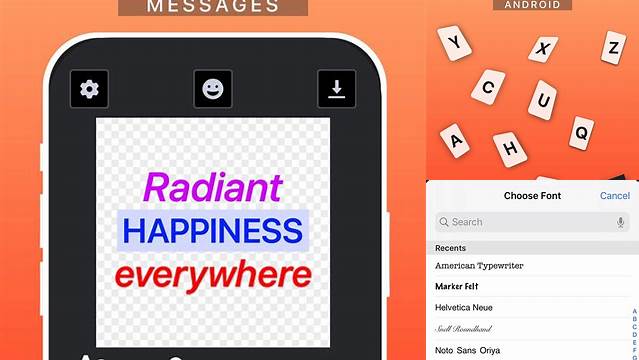
IOS Fonts For Android: Your Complete Download Guide
Hey guys, ever looked at an iPhone and thought, "Man, those fonts are slick!" Well, if you're an Android user, you're in luck! You don't have to be stuck with the same old fonts. You can absolutely get that iOS font style on your Android device. This guide will walk you through everything you need to know about downloading and installing iOS fonts on your Android phone, making your device look fresh and new. We will cover the process in detail, ensuring that even if you're not a tech whiz, you can follow along easily. We will also explore some popular iOS fonts and explain the benefits of using them. So, get ready to give your Android a stylish makeover!
What are iOS Fonts, and Why Use Them on Android?
Before we dive into the how-to, let's chat about what we're actually doing. iOS fonts are the specific typefaces used on Apple's iPhones and iPads. These fonts are carefully designed to provide a clean, readable, and aesthetically pleasing experience. The primary font used across the iOS interface is San Francisco. San Francisco comes in different weights and styles, each designed to create a unique look. The fonts on the iOS have a certain sleekness and modernity that many Android users find appealing. But, why would you want to put iOS fonts on your Android device? Here's the deal:
- Personalization: Android is all about customization, right? Changing your font is one of the easiest ways to make your phone feel unique. It’s a way to express your style and stand out from the crowd. Choosing iOS fonts allows you to give your Android a distinctive and recognizable look.
- Aesthetics: iOS fonts are often praised for their clean and modern design. They offer excellent readability, which is essential for everyday use. By switching to iOS fonts, you can improve the visual appeal of your Android’s interface. This improves your phone's readability and overall user experience.
- Familiarity: If you're coming from an iPhone, or if you just like the way iOS looks, using these fonts on Android can create a sense of familiarity and comfort. It can also serve as a bridge between different devices.
Once you've downloaded the font files, store them in a safe place on your device. Now, the fun part starts: installing them!
Installing iOS Fonts on Your Android Device
Okay, you have your font files ready to go. Now, let's install them. The installation method can vary slightly depending on your Android version and the type of device you have. However, the general steps are usually the same. There are typically two main ways to get those fonts working on your device. First, we have the built-in settings, and second, we have third-party apps that come into play.
Using Built-in Font Settings
Some Android devices, particularly those from manufacturers like Samsung, Xiaomi, and Huawei, have built-in font settings. These settings allow you to change the system-wide font easily without needing third-party apps. Here's how to do it:
- Open Settings: Go to your device’s settings menu. This is usually represented by a gear icon.
- Navigate to Display Settings: Look for options like “Display,” “Screen,” or “Wallpaper & style” (the exact wording will vary).
- Find Font Settings: Within the display settings, look for an option labeled “Font style,” “Font size and style,” or something similar. Tap on it.
- Select a Font: You should see a list of pre-installed fonts. Some devices also allow you to add custom fonts. If there's an option to add a custom font, tap on it. This will usually prompt you to select the font file you downloaded.
- Choose the iOS Font: Browse your device’s storage and select the iOS font file (.ttf or .otf) that you downloaded.
- Apply the Font: Once you select the font, you may be prompted to confirm the installation. Tap on “Apply” or “OK” to apply the new font to your system.
Using Third-Party Apps
If your device doesn’t have built-in font settings or if you want more control, you can use a third-party app. There are many apps available on the Google Play Store that let you change fonts. The best thing is to do a search for "font changer" or "font style" in the Google Play Store. Some popular font changer apps include iFont, HiFont, and FontFix. Here's a general guide on how to use them:
- Download and Install the App: Download a font changer app from the Google Play Store and install it on your device. Make sure to read reviews to pick a reliable app.
- Open the App: Launch the font changer app.
- Grant Permissions: The app will likely ask for permissions, such as access to your storage. Grant the necessary permissions.
- Find and Select the Font: The app should have a list of available fonts. Browse the list and look for your desired iOS font (or a close equivalent). If the font isn’t listed, you may need to import the font file from your device’s storage.
- Apply the Font: Select the font, and the app will guide you through the installation process. This may involve a system reboot or other steps.
- Reboot Your Device: After the installation, the app might prompt you to restart your device for the font to take effect. Do so.
When using third-party apps, be aware of the following:
- Root Access: Some apps may require root access to change fonts system-wide. If you don't know what root access is, don't worry! There are also apps that don't require it, especially for devices that have custom font support built in.
- App Permissions: Pay attention to the permissions the app requests. Only grant permissions that are necessary.
- Ads and In-App Purchases: Many font changer apps are ad-supported and may offer in-app purchases. Consider this when choosing an app.
Troubleshooting and Tips
Alright, let's get into some of the common issues you might run into and how to fix them. Even when following the instructions, sometimes things don't go as planned. Don't worry; we will troubleshoot some problems and offer some useful tips:
Font Not Changing
- Compatibility Issues: Check if the font file is compatible with your device and Android version. Ensure the file is in .ttf or .otf format.
- Incorrect Installation: Double-check that you followed the installation steps correctly. You may need to restart your device after installation.
- App Issues: If you're using a third-party app, ensure the app has the necessary permissions and that it is compatible with your device. Try restarting the app or reinstalling it.
Font Looks Strange
- Font Rendering: Some fonts may not render perfectly on all devices. This can depend on your device's screen resolution and font rendering engine.
- Font Size: Adjust the font size in your device's display settings to find a size that looks good.
General Tips
- Backup: Back up your data before making significant changes to your system, just in case something goes wrong.
- Experiment: Try out different fonts and settings to find what works best for you. This is all about personalization!
- Stay Updated: Keep your font changer app and Android system updated to ensure compatibility and get the latest features.
Final Thoughts and Considerations
Changing your phone's fonts can be a fun and easy way to personalize your device. Adding iOS fonts is an awesome way to get that sleek, modern look. It's also a great way to make your device look unique. Remember that this is a process that requires a bit of trial and error. Also, there are various apps and websites, so do some research to find resources that work for you.
- Legality: Always respect copyright laws. Only download fonts from reputable sources that offer them for free or allow personal use.
- Device Compatibility: Ensure the fonts you download are compatible with your device. Android versions and phone models vary, so some fonts may not work.